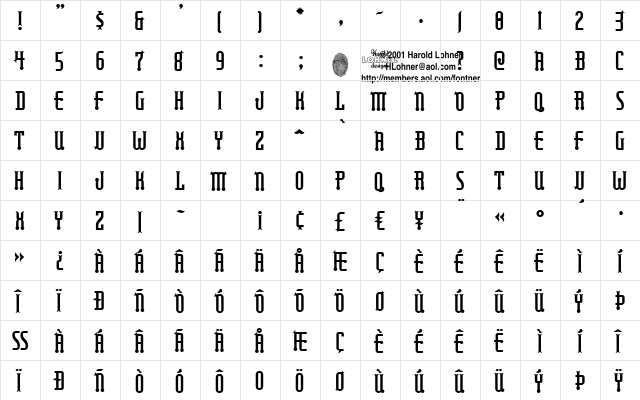
RubaiyatSolid Regular
Design Context for RubaiyatSolid Typeface
RubaiyatSolid is a composed and adaptable typeface that performs quietly and consistently across a wide range of design contexts.